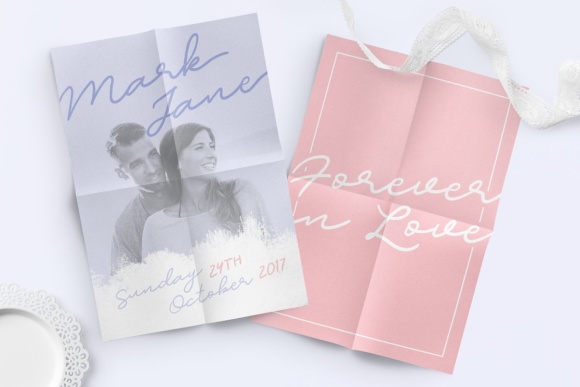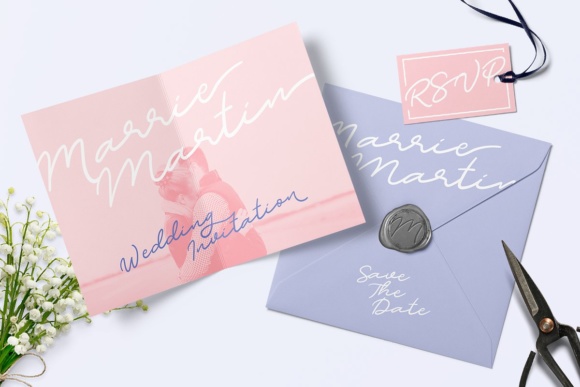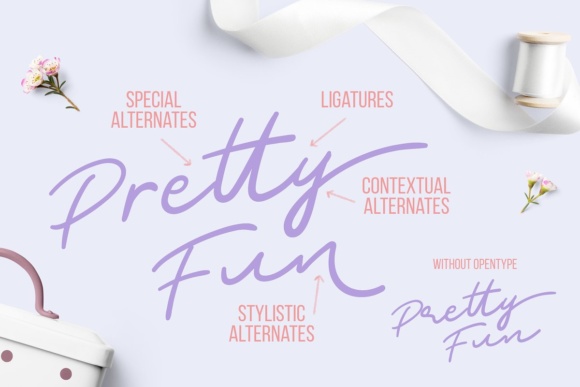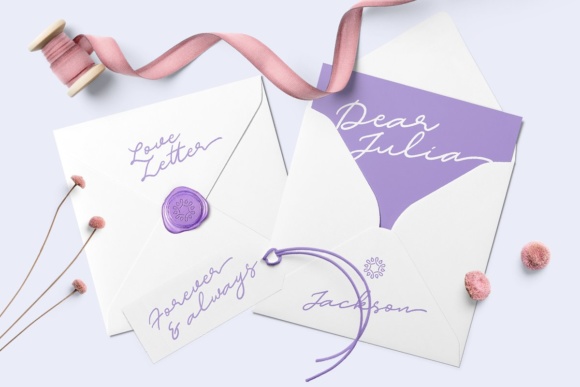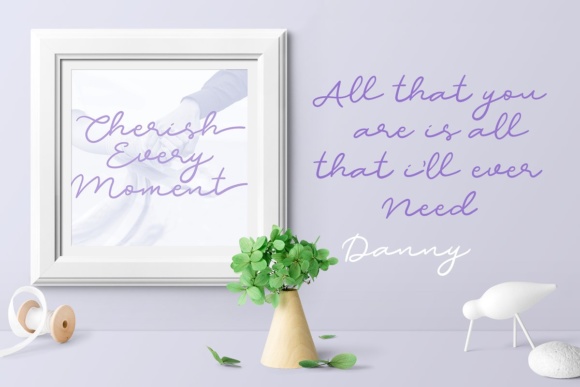
Introducing Dear Jane Script Font: A Romantic and Natural Typeface
Are you looking for a font that exudes elegance, romance, and a touch of handmade charm? Look no further than the Dear Jane Script Font. This lovely typeface was made from actual handwriting, giving it a natural and romantic feeling that’s perfect for a variety of design projects.
The Origins of Dear Jane Script Font
The Dear Jane Script Font is a unique typeface that was created from genuine handwriting. This means that it has a distinctive, organic feel that’s hard to replicate with digital fonts. The font’s natural, flowing lines and subtle imperfections make it feel like it was written just for you. Whether you’re a designer, crafter, or DIY enthusiast, this font is sure to add a touch of personality to your projects.
What Makes Dear Jane Script Font So Special?
So, what sets the Dear Jane Script Font apart from other typefaces? Here are just a few of its standout features:
- Natural and Romantic Feel: As mentioned earlier, this font has a natural, romantic feel that’s perfect for creating beautiful, eye-catching designs.
- Handwritten from Actual Handwriting: The font was created from real handwriting, giving it a unique, personal touch.
- Perfect for a Variety of Projects: The Dear Jane Script Font is versatile and can be used for signatures, wedding invitations, greeting cards, logos, and much more!
Uses for Dear Jane Script Font
The Dear Jane Script Font is incredibly versatile and can be used for a wide range of design projects. Here are a few ideas to get you started:
- Wedding Invitations: Add a touch of romance and elegance to your wedding invitations with this beautiful script font.
- Greeting Cards: Create personalized, handmade-style greeting cards for special occasions like birthdays, anniversaries, and holidays.
- Signatures: Use the Dear Jane Script Font to create beautiful, unique signatures that add a personal touch to your documents and correspondence.
- Logos: This font is perfect for creating custom logos for your business or personal brand.
- Crafting and Scrapbooking: Add a touch of handmade charm to your crafting and scrapbooking projects with this lovely script font.
Tips for Using Dear Jane Script Font
Here are a few tips for getting the most out of the Dear Jane Script Font:
- Use it Sparingly: Because of its elegant, romantic feel, it’s best to use this font sparingly to avoid overwhelming your design.
- Pair it with Other Fonts: Experiment with pairing the Dear Jane Script Font with other fonts to create visually interesting and dynamic designs.
- Experiment with Colors and Textures: Add an extra layer of depth and interest to your design by experimenting with different colors and textures.
In conclusion, the Dear Jane Script Font is a beautiful, unique typeface that’s perfect for designers, crafters, and DIY enthusiasts. Its natural, romantic feel and handmade origins make it a standout choice for a wide range of design projects. Whether you’re looking to add a touch of elegance to your wedding invitations or create a custom logo for your business, this lovely script font is sure to impress.